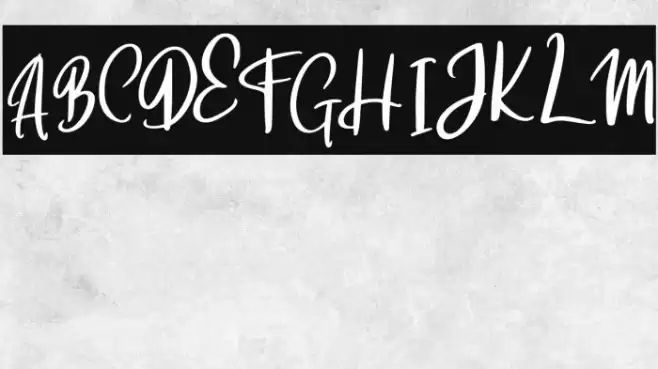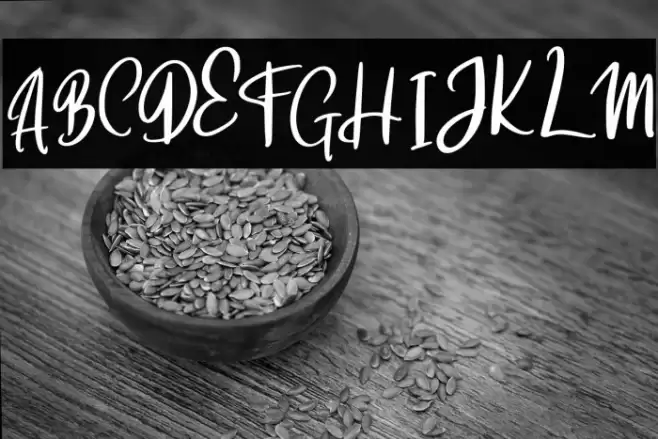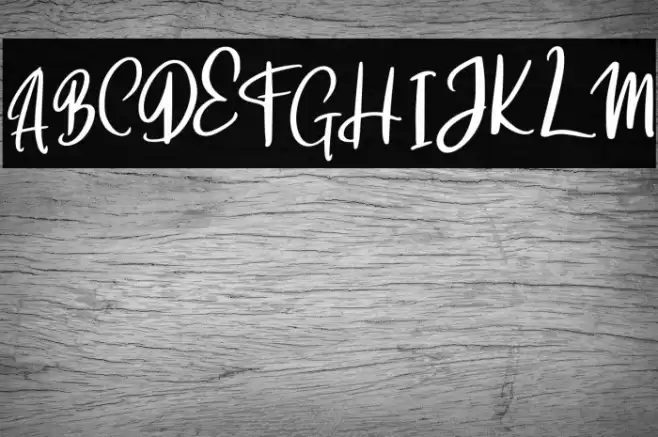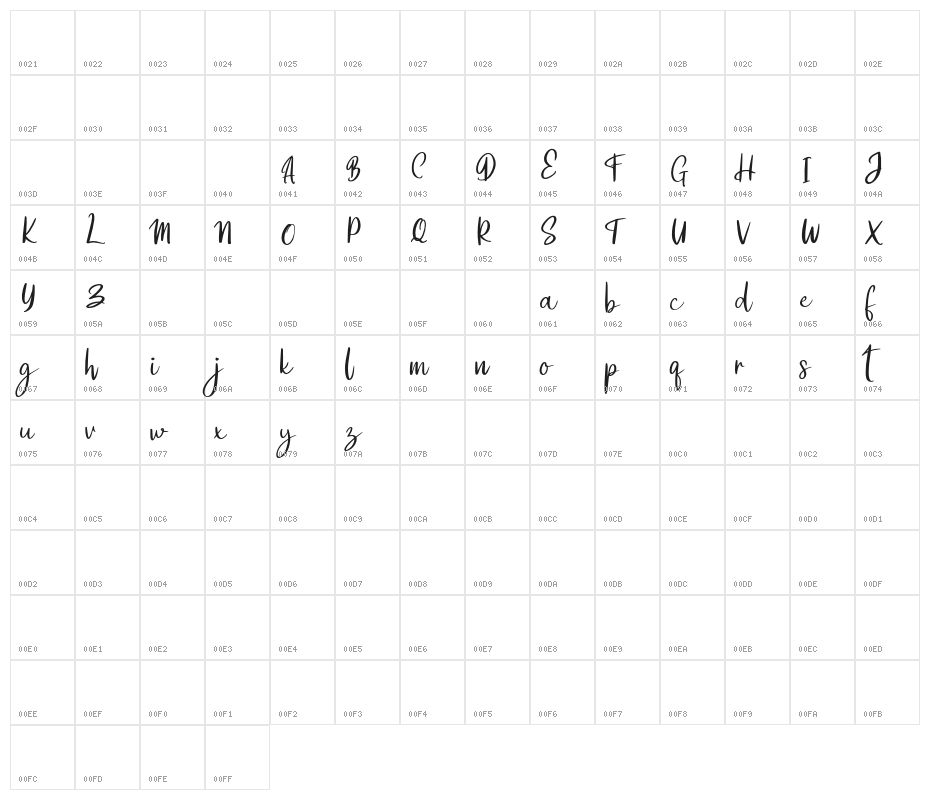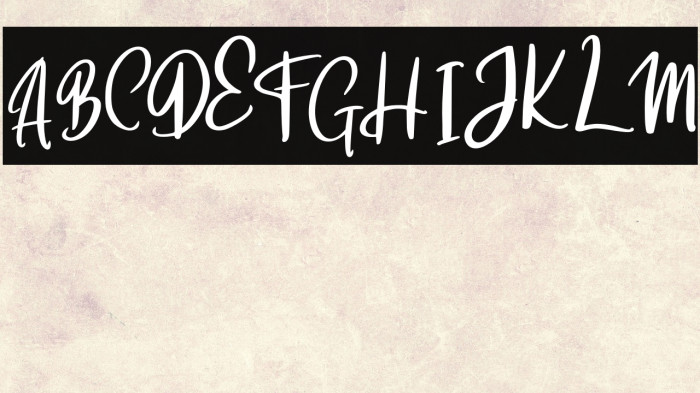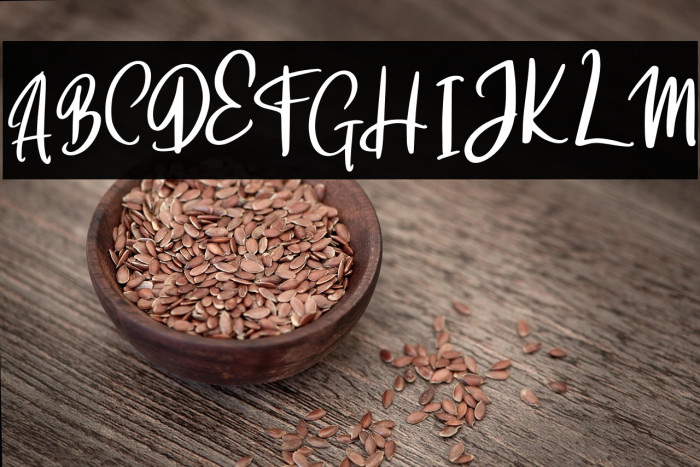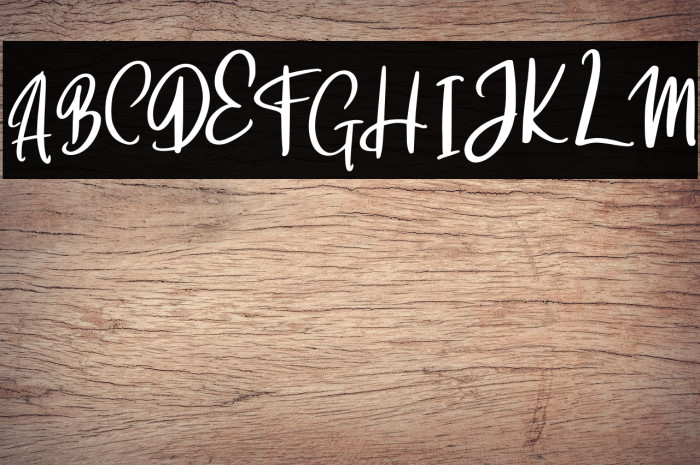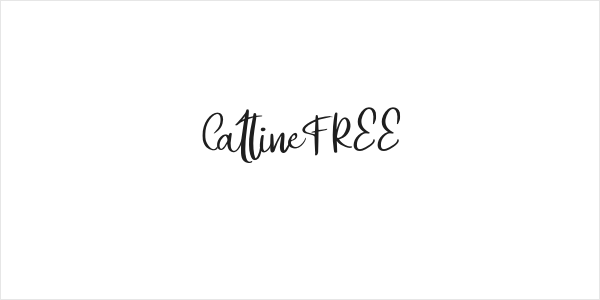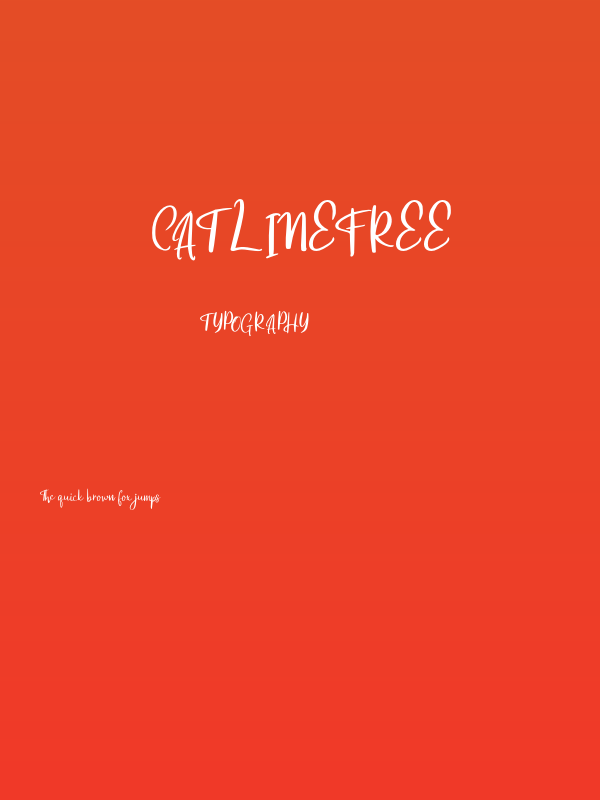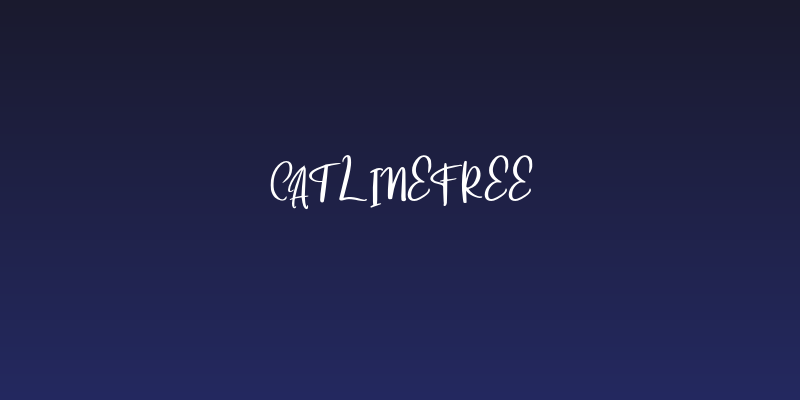
CatlineFREE Font
CatlineFREE Description
This font features a playful and energetic script style with a handwritten appearance. The letters are characterized by their fluid, cursive forms and varying stroke widths, which give it a lively and dynamic feel. The uppercase letters are bold and slightly slanted, while the lowercase letters maintain a consistent flow with elegant loops and curves. The overall design is informal yet stylish, making it suitable for creative projects. The font's unique personality is enhanced by its decorative flair, making it ideal for adding a personal touch to any design.
A playful, handwritten script font with dynamic strokes and decorative flair from Uncategorized fonts.
- Font: CatlineFREE
- Proposed Projects: Ideal for greeting cards, invitations, branding, and social media graphics.
- Use Case: Logos, Headlines, Invitations